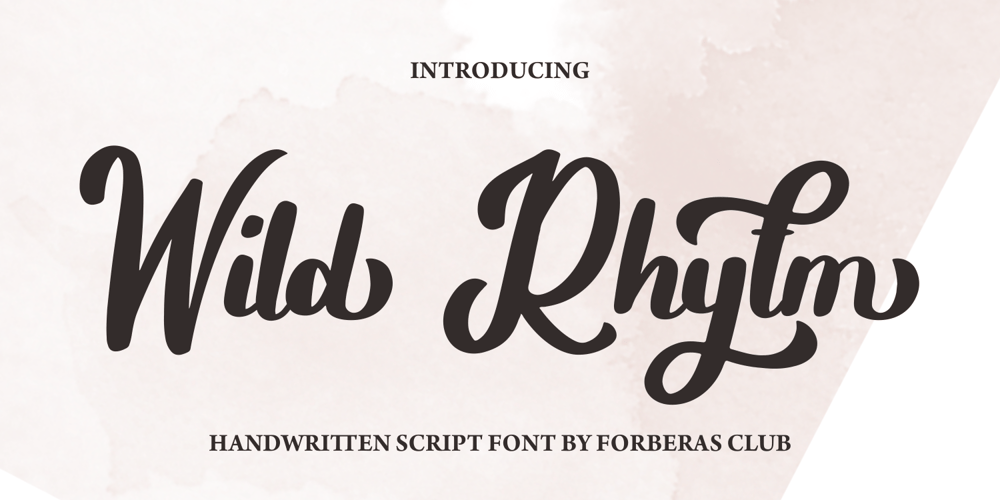
Wild Rhytm Font Family was designed by ANGGI HERMAWAN and published by Forberas Club. Wild Rhytm contains 1 styles and family package options. This new script font is written by our team, and ready to pop up your project by using this font for your party, event, invitation or at your wedding decor.